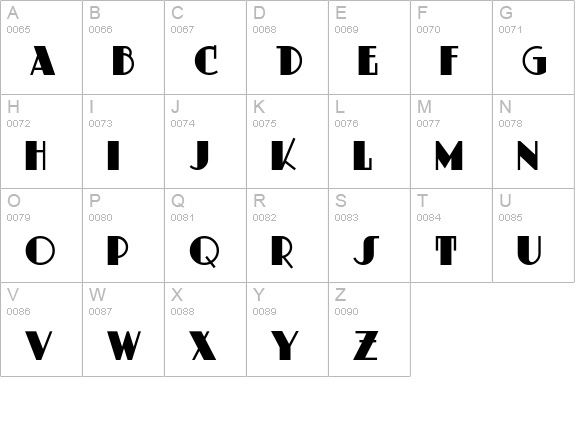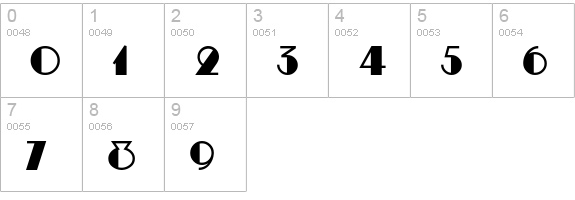
DustyRose is a free for personal use font in the Fancy > Art+Deco category. It has been downloaded 1 times and is available for Windows, Mac and Linux.
Introducing DustyRose, a beautifully crafted font that exudes elegance and charm. This font combines delicate curves with a touch of vintage flair, making it perfect for a wide range of creative projects. Its graceful strokes and subtle details give DustyRose a timeless appeal, making it a versatile choice for branding, logos, invitations, and more. What sets DustyRose apart is not only its exquisite design but also the fact that it is available for free! Yes, you read that right. DustyRose is freely available to download at FontsMarket.com. This means that you can add this stunning font to your collection without spending a dime. Whether you are a professional designer or a DIY enthusiast, DustyRose will elevate your work to new heights. Its flowing letters and unique character set will bring a touch of sophistication to any project. From wedding invitations to fashion magazines, DustyRose will effortlessly capture attention and create a lasting impression. With DustyRose, you have the freedom to explore your creativity without any limitations. Its versatility allows it to be used for various design purposes, from elegant headings to stylish body text. The possibilities are endless, and the results are always stunning. So why wait? Head over to FontsMarket.com and download DustyRose for free today. Discover the beauty and versatility of this font and see how it can transform your designs. Don't miss out on the opportunity to enhance your projects with the timeless elegance of DustyRose. Get it now and let your creativity soar!